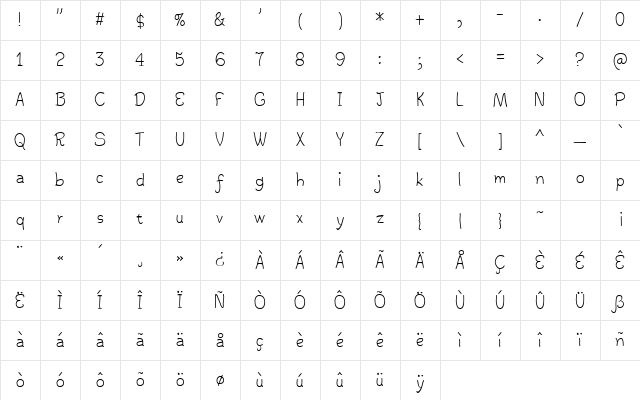
Argenta Regular
Design Context for Argenta
Argenta is a composed and adaptable typeface that performs quietly and consistently across a wide range of design contexts.